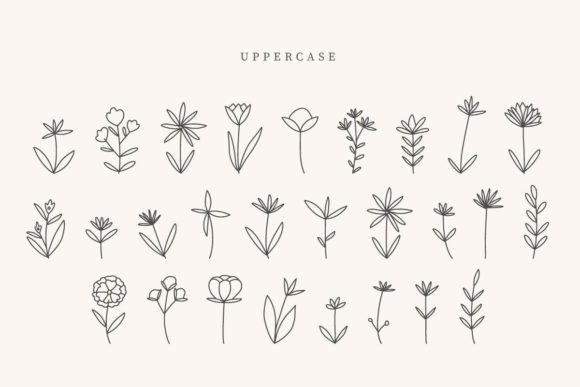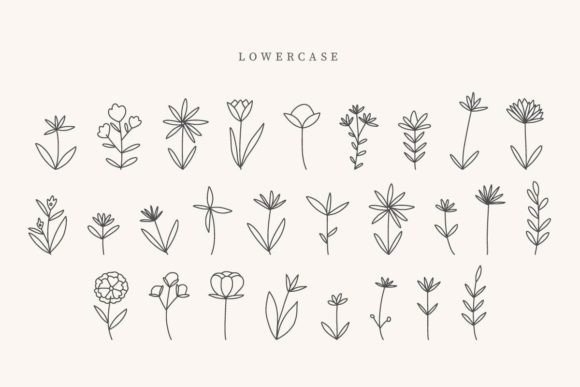
Easter Flower Font: A Beautiful Botanical Dingbat Font for Creative Projects
Are you looking for a unique and beautiful font to add a touch of elegance to your creative projects? Look no further than the Easter Flower Font! This stunning botanical dingbat font is perfect for designers and crafters who want to add a special something to their work. In this article, we’ll take a closer look at the Easter Flower Font and explore its many uses in creative projects.
What is Easter Flower Font?
Easter Flower Font is a beautiful botanical dingbat font that features intricate and delicate flower designs. The font is made up of a collection of stunning floral illustrations that can be used to add a touch of elegance and sophistication to any project. With its beautiful and intricate designs, Easter Flower Font is perfect for a wide range of creative projects, from wedding invitations and stickers to logos, t-shirts, and posters.
Features of Easter Flower Font
Easter Flower Font has a number of features that make it a great choice for designers and crafters. Some of its key features include:
- Beautiful botanical designs: The font features stunning floral illustrations that are sure to add a touch of elegance to any project.
- Versatile: The font can be used for a wide range of creative projects, from wedding invitations and stickers to logos, t-shirts, and posters.
- Unique and eye-catching: The font’s unique and intricate designs are sure to grab attention and make your project stand out.
Uses of Easter Flower Font
Easter Flower Font is a versatile font that can be used for a wide range of creative projects. Here are some ideas for using the font:
- Wedding invitations: Add a touch of elegance and sophistication to your wedding invitations with Easter Flower Font.
- Stickers: Use the font to create beautiful and eye-catching stickers for parties, gifts, and more.
- Logos: Use Easter Flower Font to create a unique and memorable logo for your business or brand.
- T-shirts: Add a touch of elegance and sophistication to your t-shirt designs with Easter Flower Font.
- Posters: Use the font to create stunning posters for events, promotions, and more.
Tips for Using Easter Flower Font
Here are some tips for using Easter Flower Font in your creative projects:
- Experiment with different colors: Easter Flower Font looks great in a variety of colors, so don’t be afraid to experiment and find the perfect color for your project.
- Use it sparingly: Because of its intricate designs, Easter Flower Font can be overwhelming if used too much. Use it sparingly to add a touch of elegance and sophistication to your project.
- Pair it with other fonts: Easter Flower Font pairs well with a variety of other fonts, so don’t be afraid to experiment and find the perfect combination for your project.
Easter Flower Font is a beautiful botanical dingbat font that is perfect for designers and crafters who want to add a touch of elegance and sophistication to their creative projects. With its stunning floral illustrations and versatile uses, Easter Flower Font is a great choice for a wide range of projects, from wedding invitations and stickers to logos, t-shirts, and posters. Whether you’re a professional designer or a crafter, Easter Flower Font is sure to inspire your creativity and help you create something truly special.